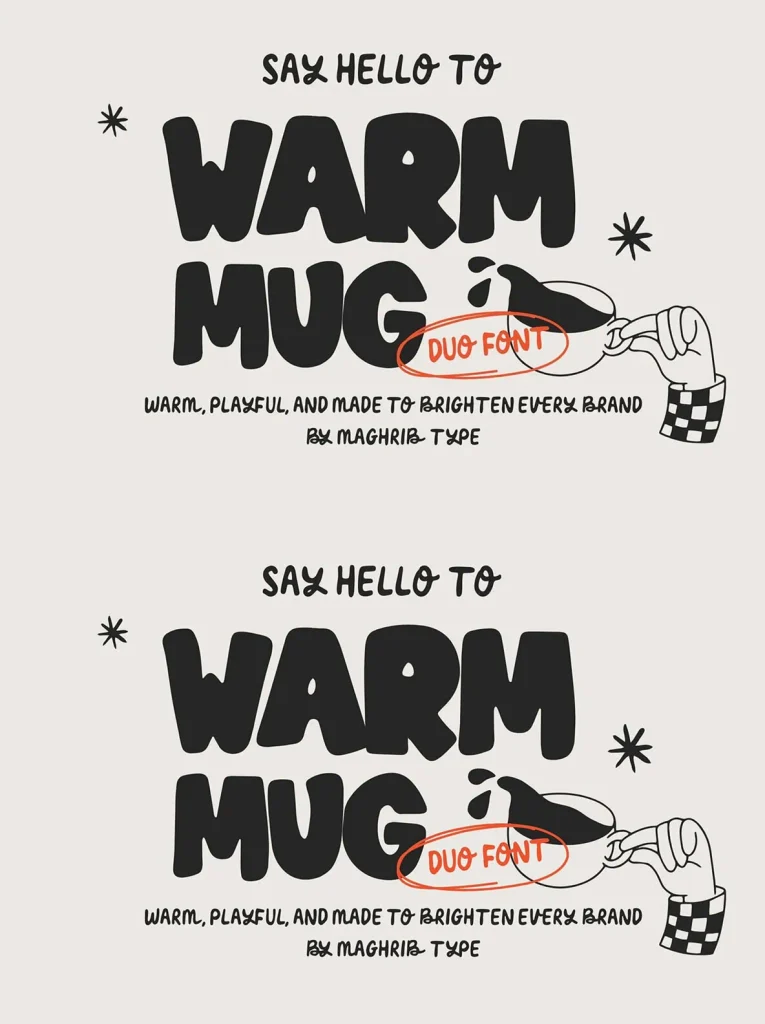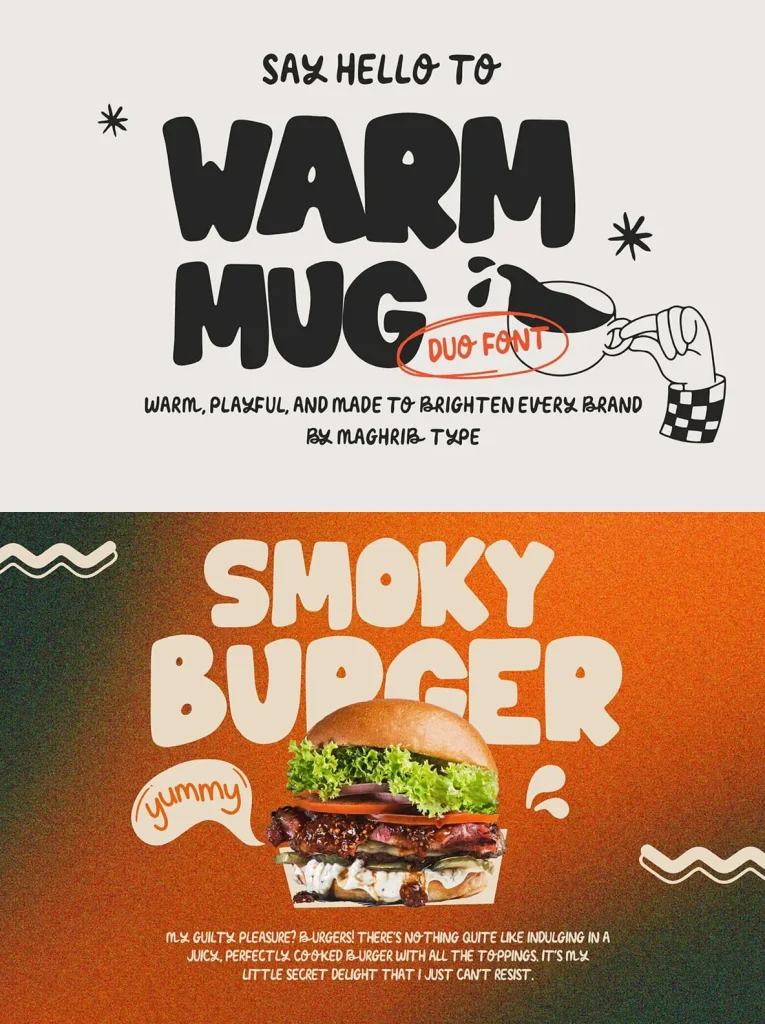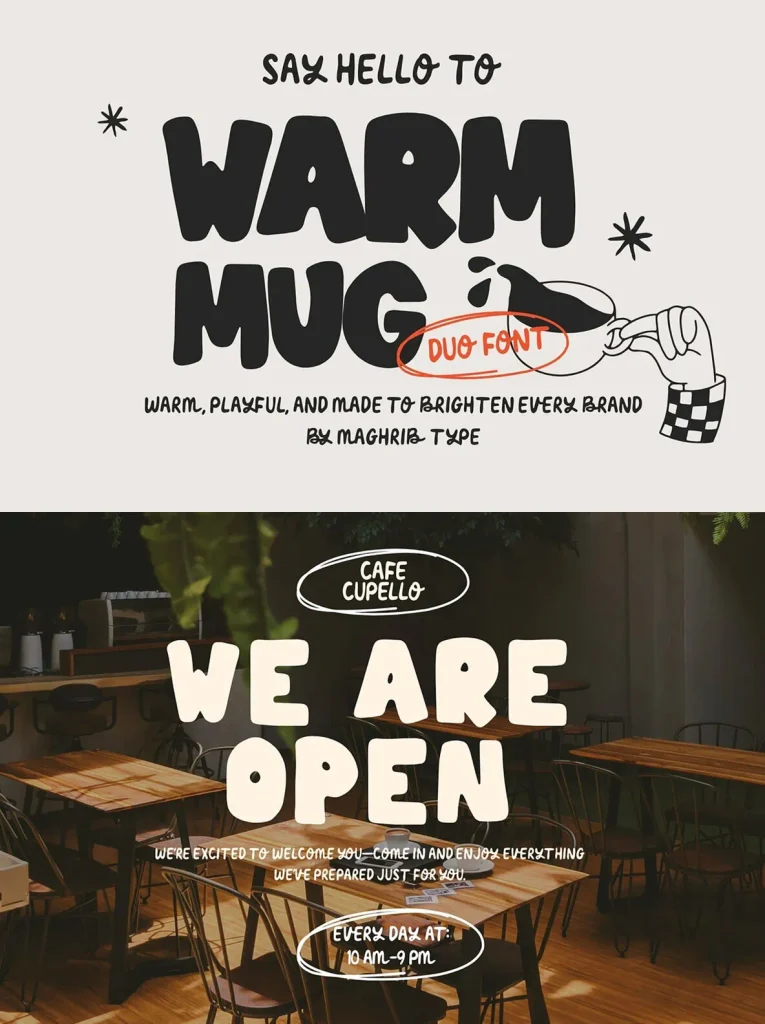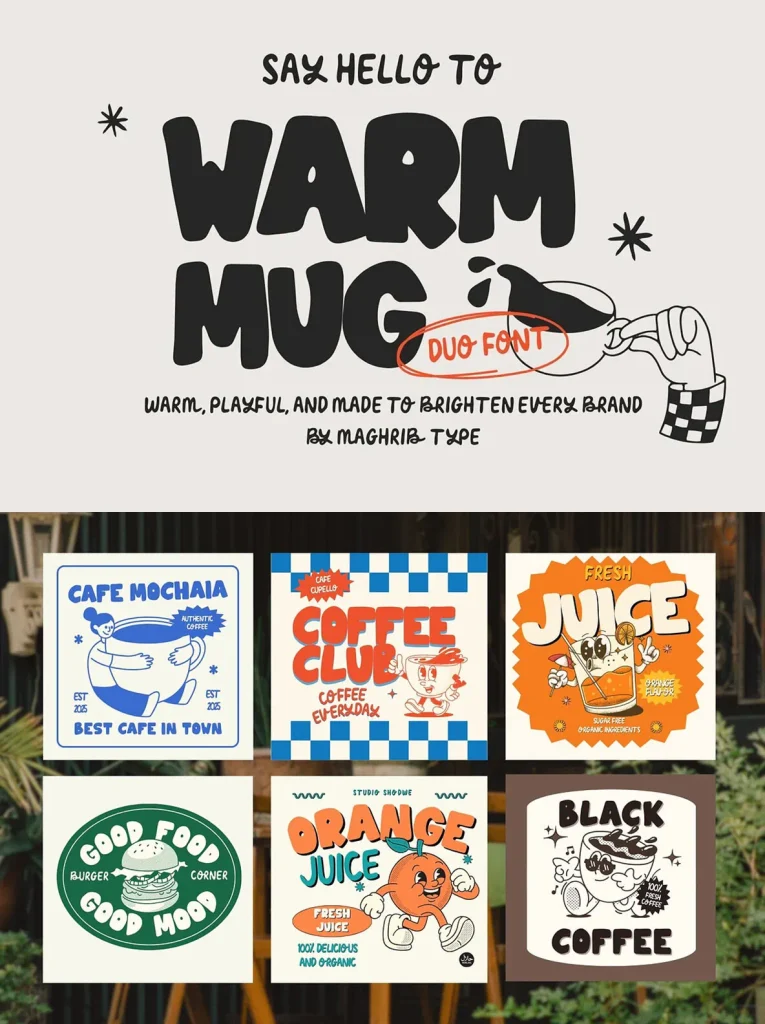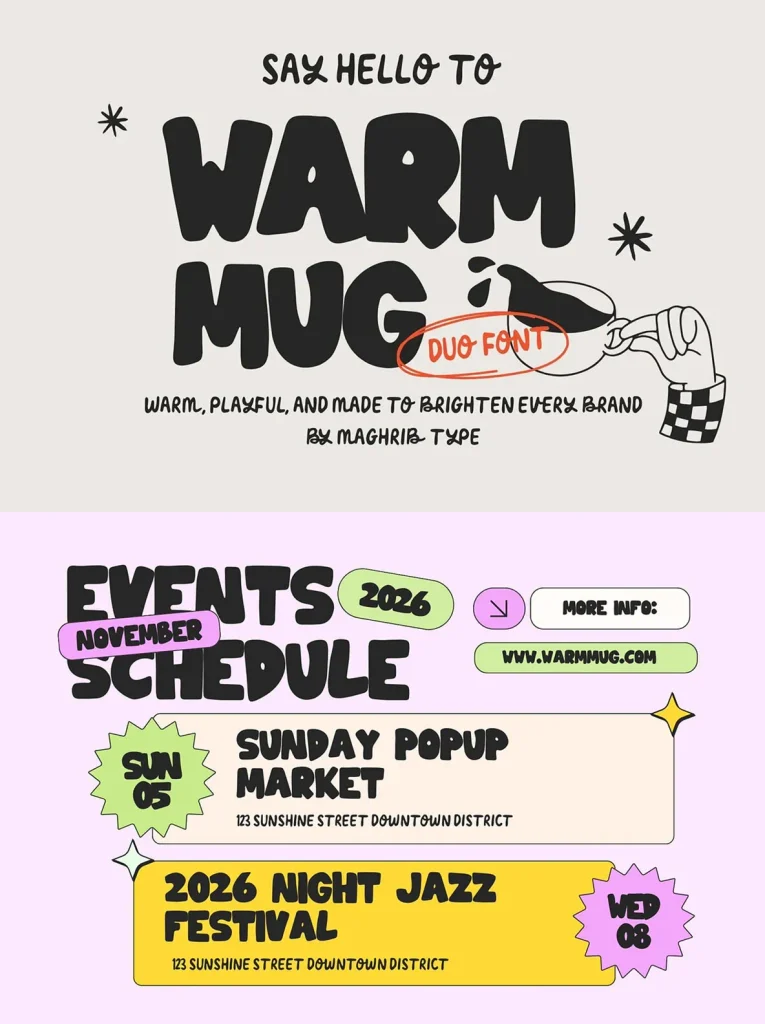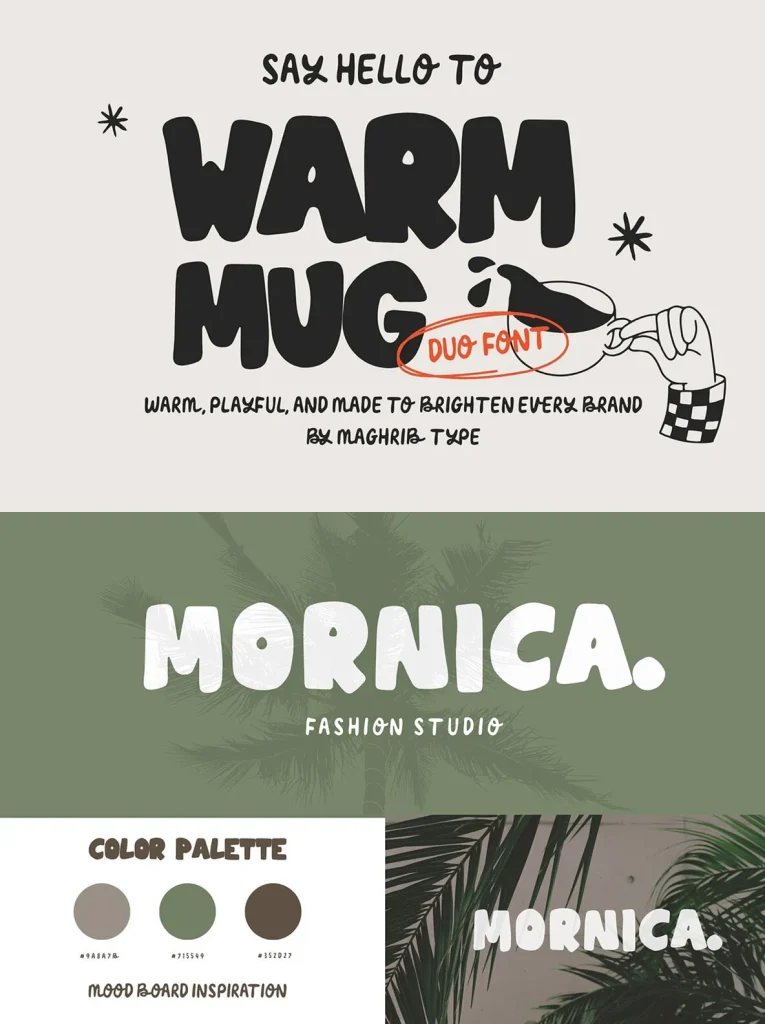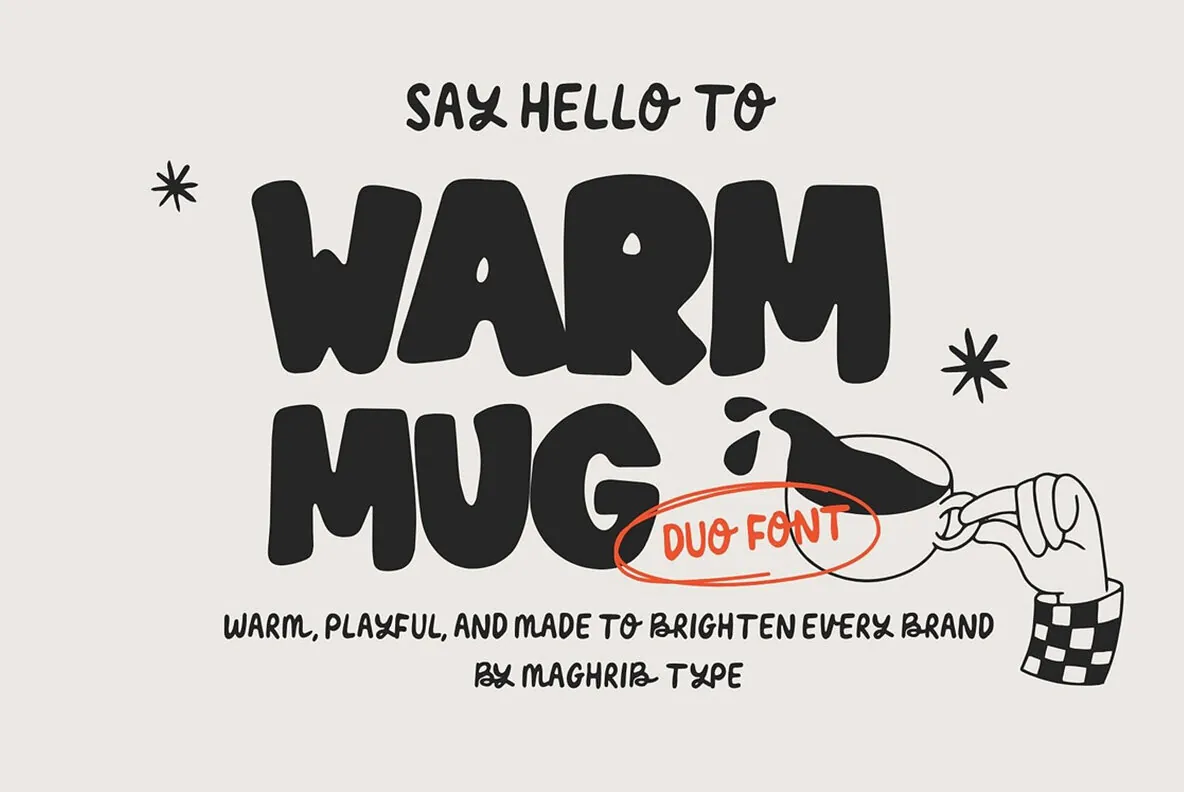
Warm Mug Font
Warm Mug — Cozy Handdrawn Charm
Warm Mug is a playful handdrawn duo font made to bring warmth, personality, and charm into visual design. Inspired by cozy coffee shops, sunny summer days, and cheerful branding visuals, it pairs a fun attitude with a stylish, organic look. Its rounded letterforms feel friendly and approachable, giving each word a natural handwritten character.
The handcrafted feel makes Warm Mug a strong choice for designs that need to feel authentic, lively, and welcoming. Use it for coffee shop branding, summer-themed posters, food packaging, social media graphics, merchandise, and playful brand identities. With its warm character and fun aesthetic, Warm Mug is made to brighten every brand.
Styles Included
Bold — Thick, expressive, and eye-catching. Perfect for headlines, logos, posters, packaging, and bold branding statements.
Thin — Light, clean, and flexible. Great for taglines, subheadings, supporting text, and creative layout combinations.
Perfect For
Coffee shop & cafe branding
Summer posters & menus
Food & beverage packaging
Juice and organic product labels
Social media graphics
Merchandise, stickers & apparel
Retro and playful brand identities